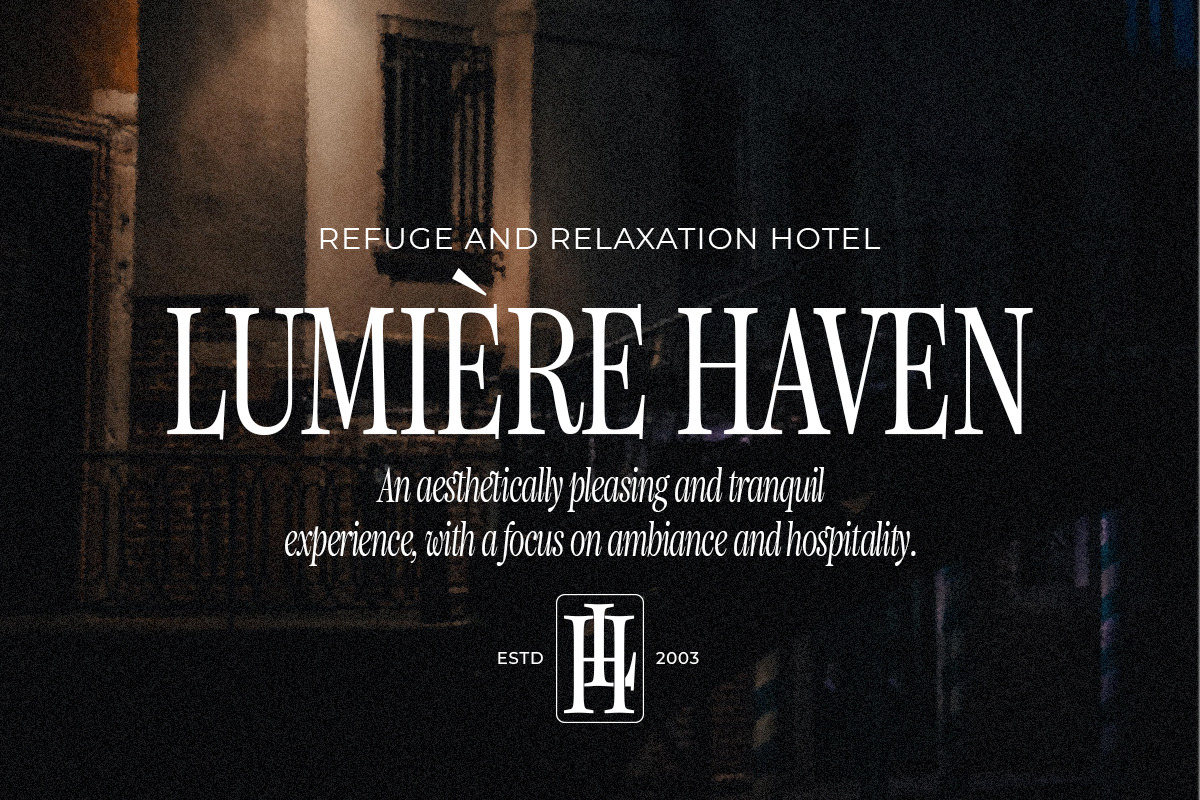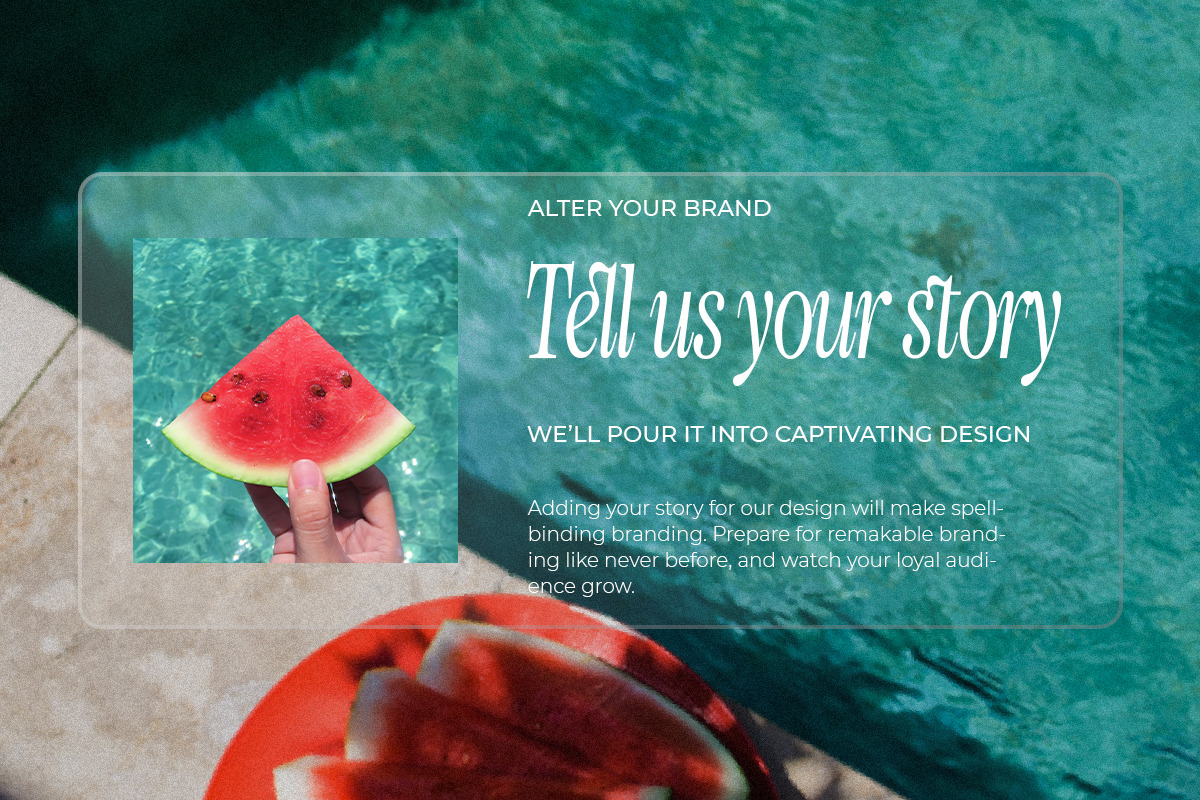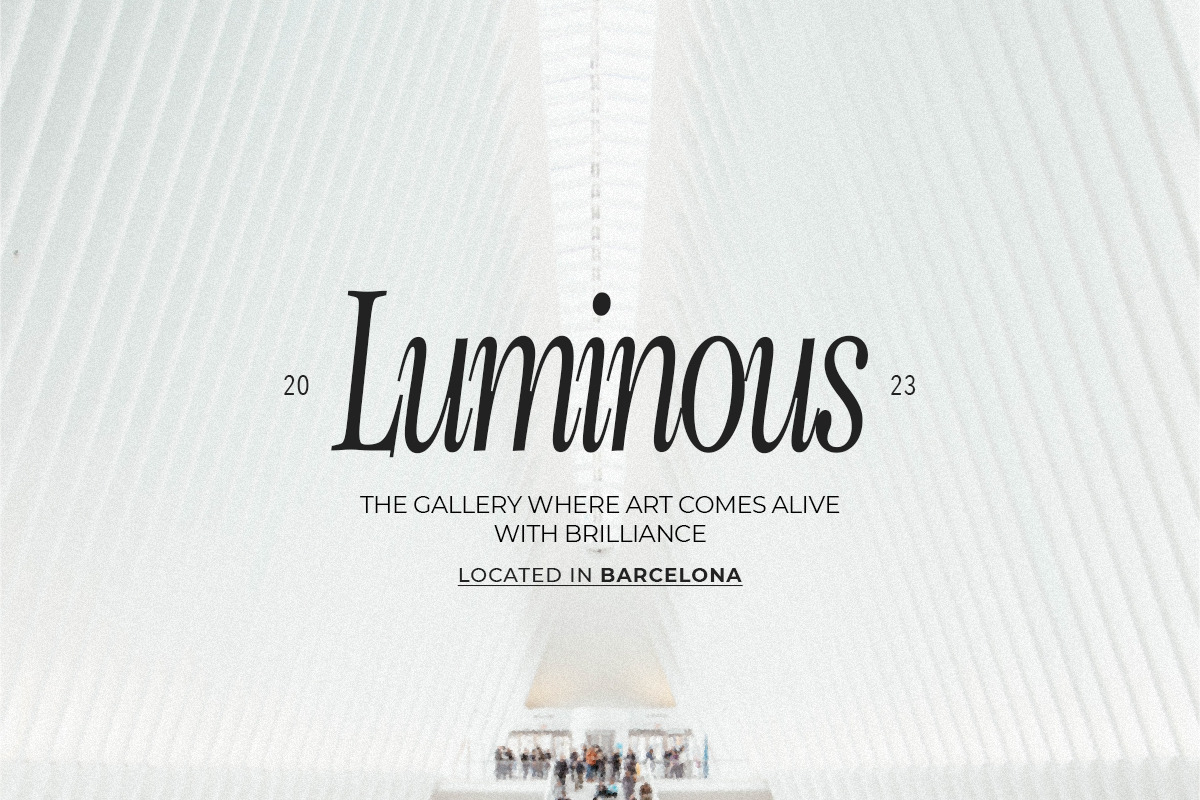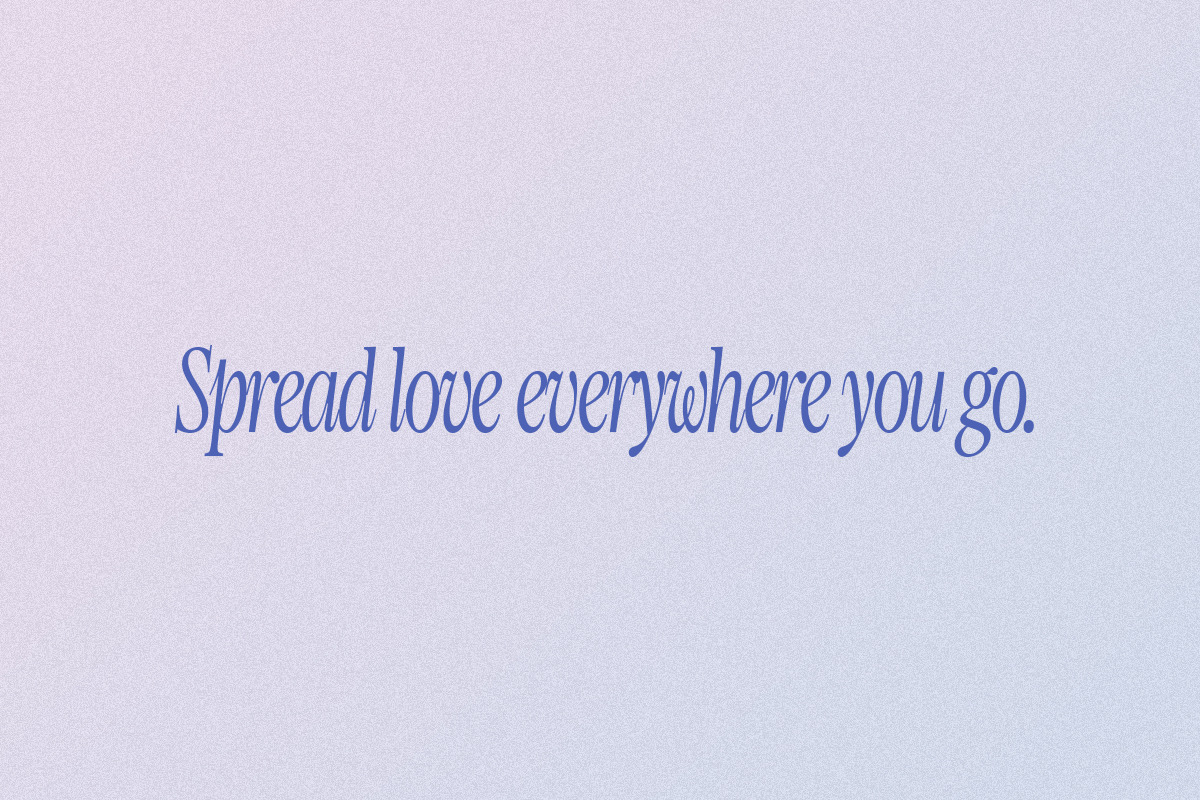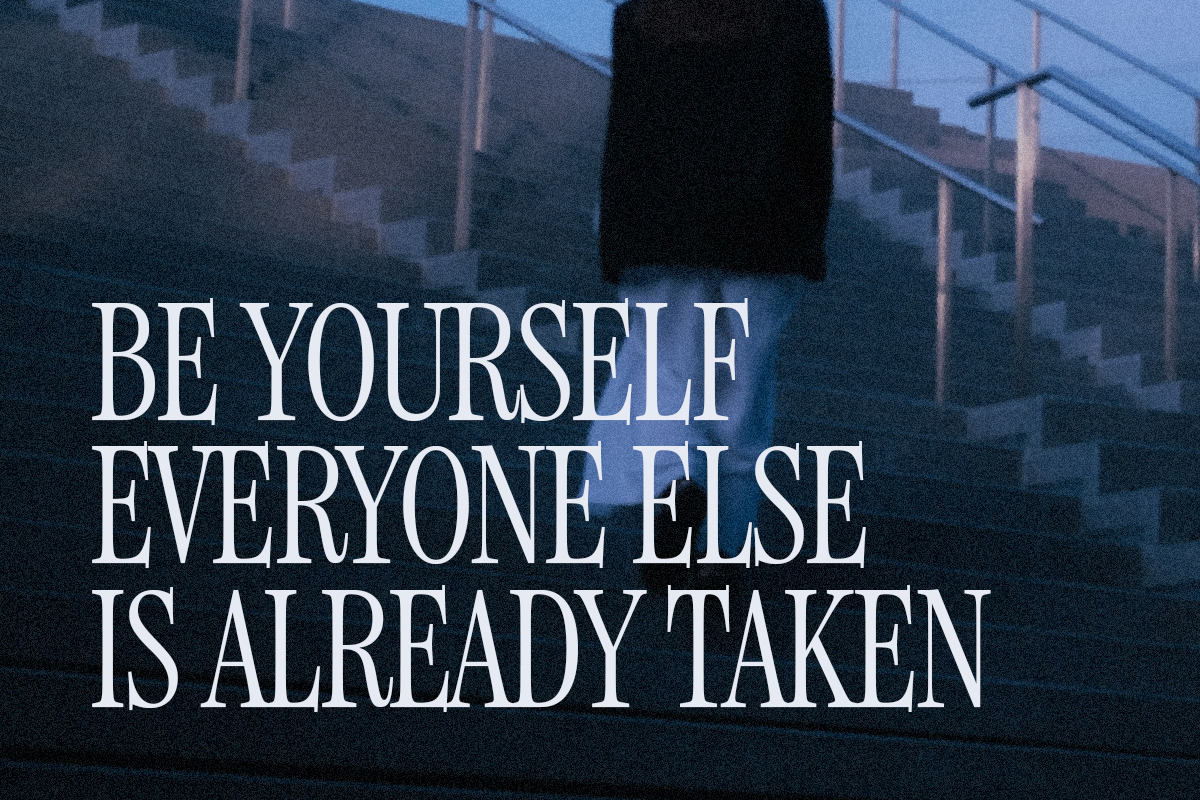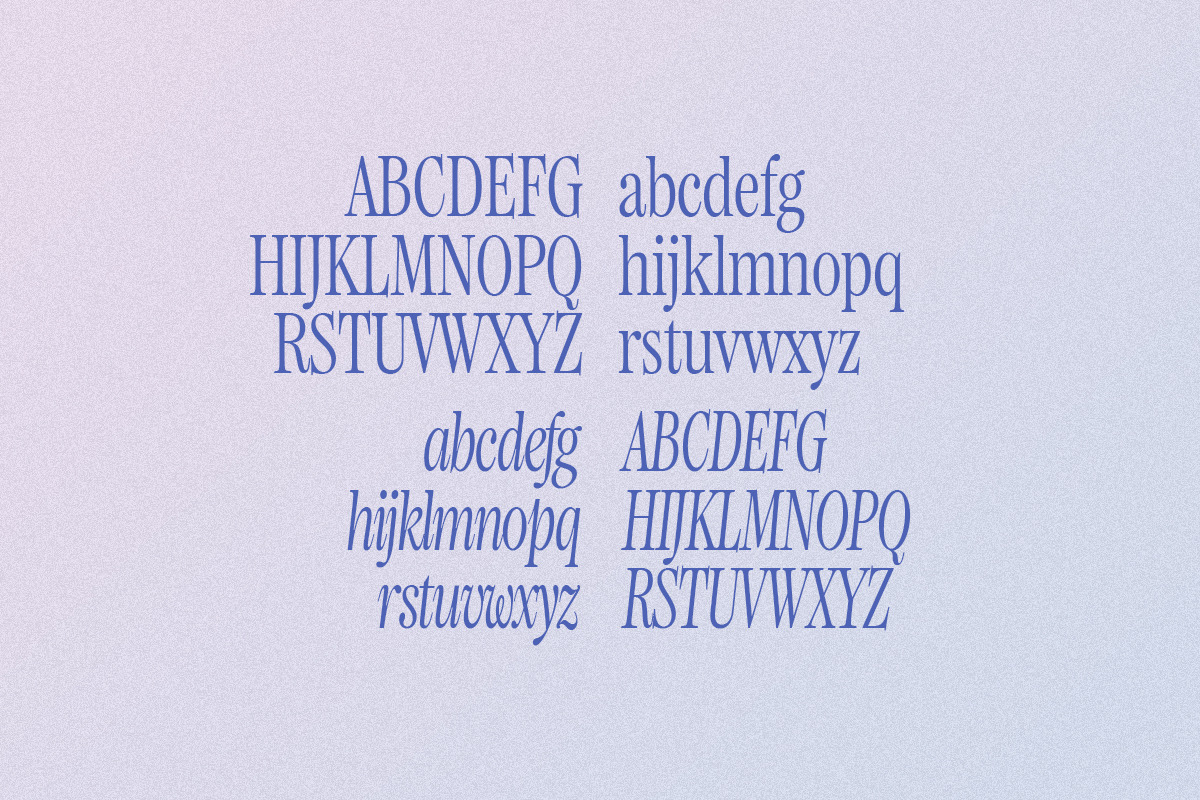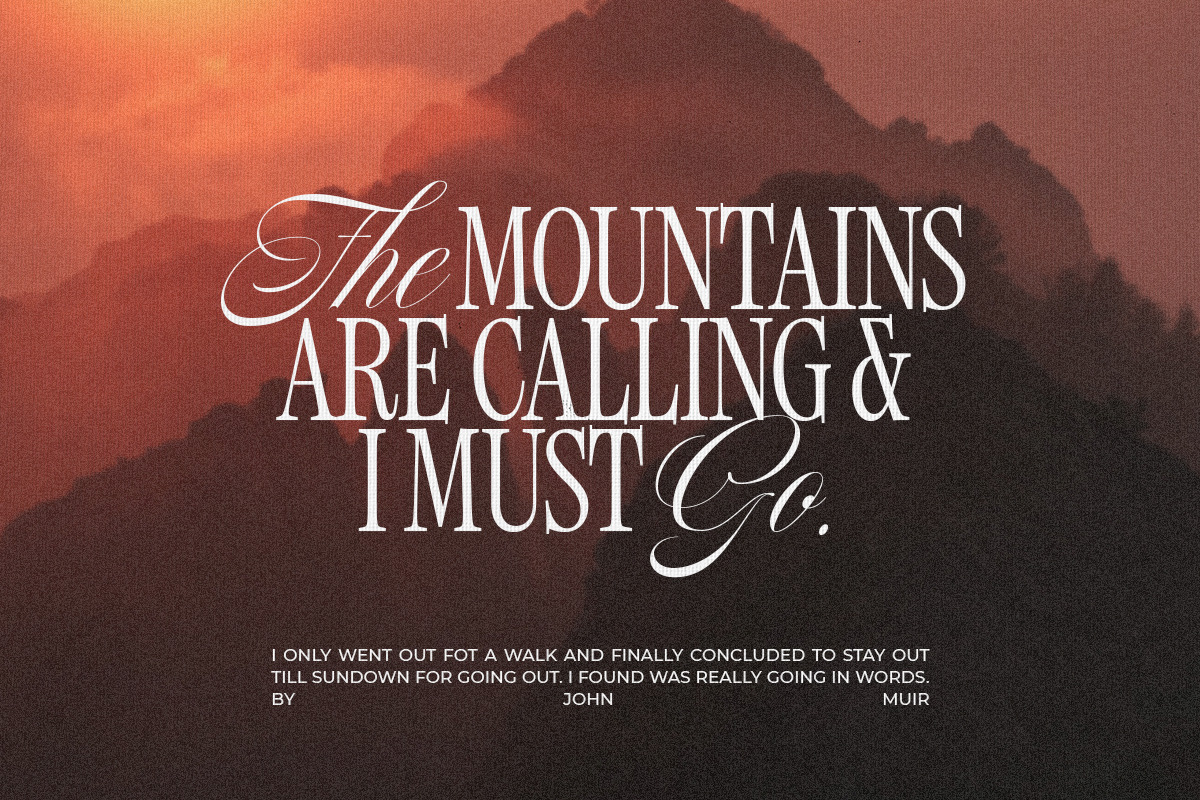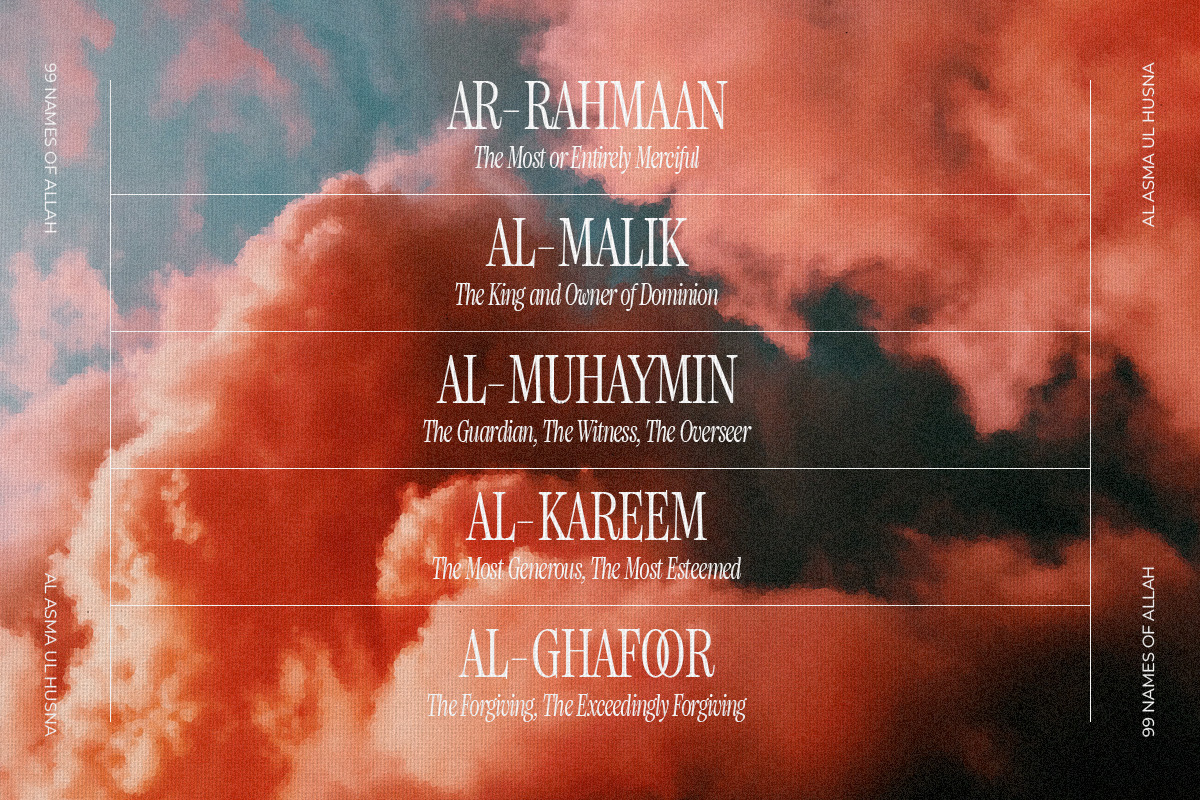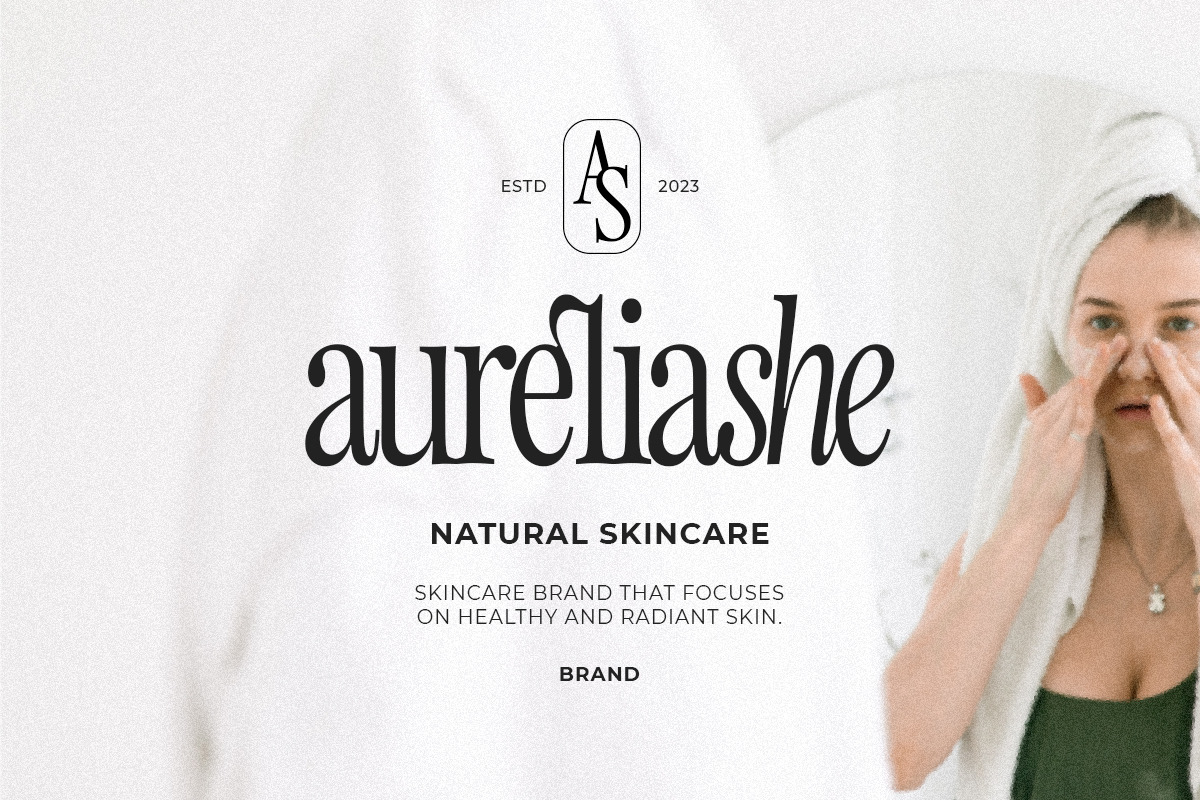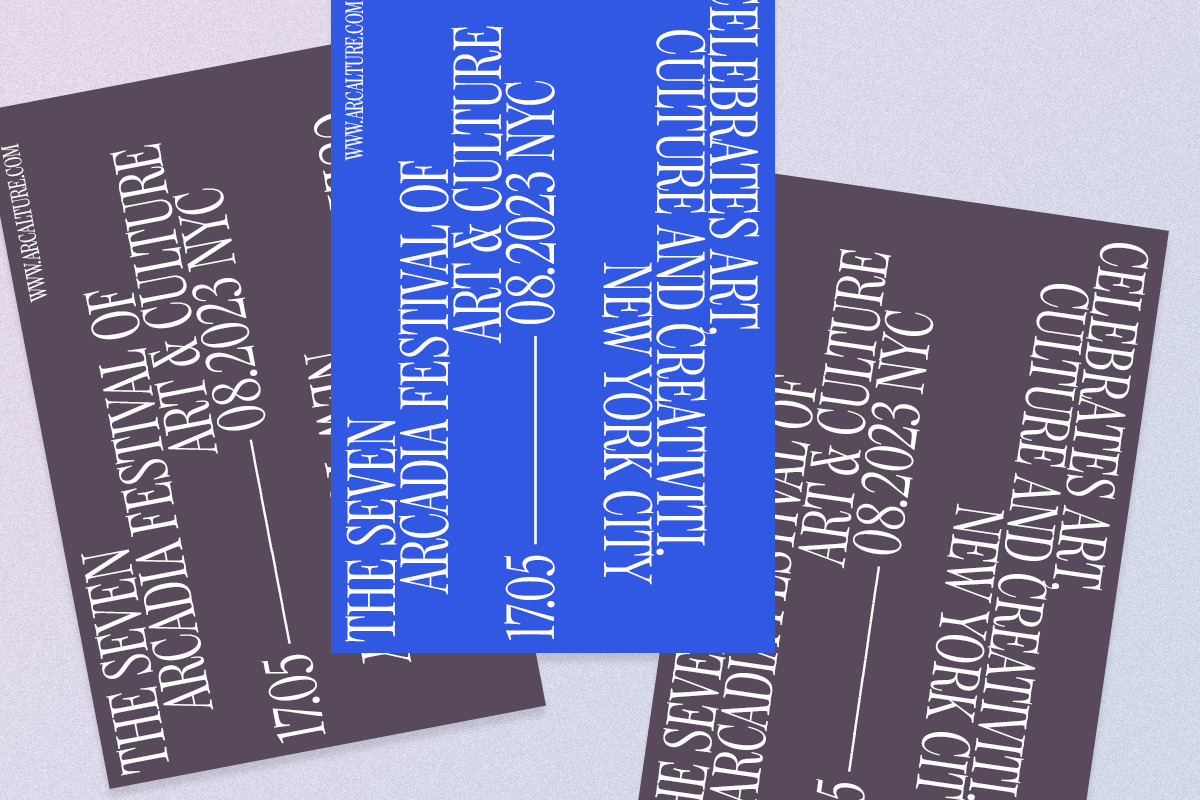
Elyanor Elegant Classic Serif
Elyanor is a classic display serif font, drawing inspiration from French Renaissance type. It is available in both regular and italic styles, making it versatile for use in various design projects.
Elyanor's serifs make it perfect for creating headlines and titles that grab attention. Additionally, its classic look lends itself well to editorial design, where it can add a touch of sophistication and elegance to text-heavy layouts.
Elyanor is also suitable for use in monograms, logos, and branding materials, where its distinctive and memorable appearance can help establish a brand's identity. Its versatility extends to poster design, allowing it to create bold and eye-catching typography that stands out from the crowd.